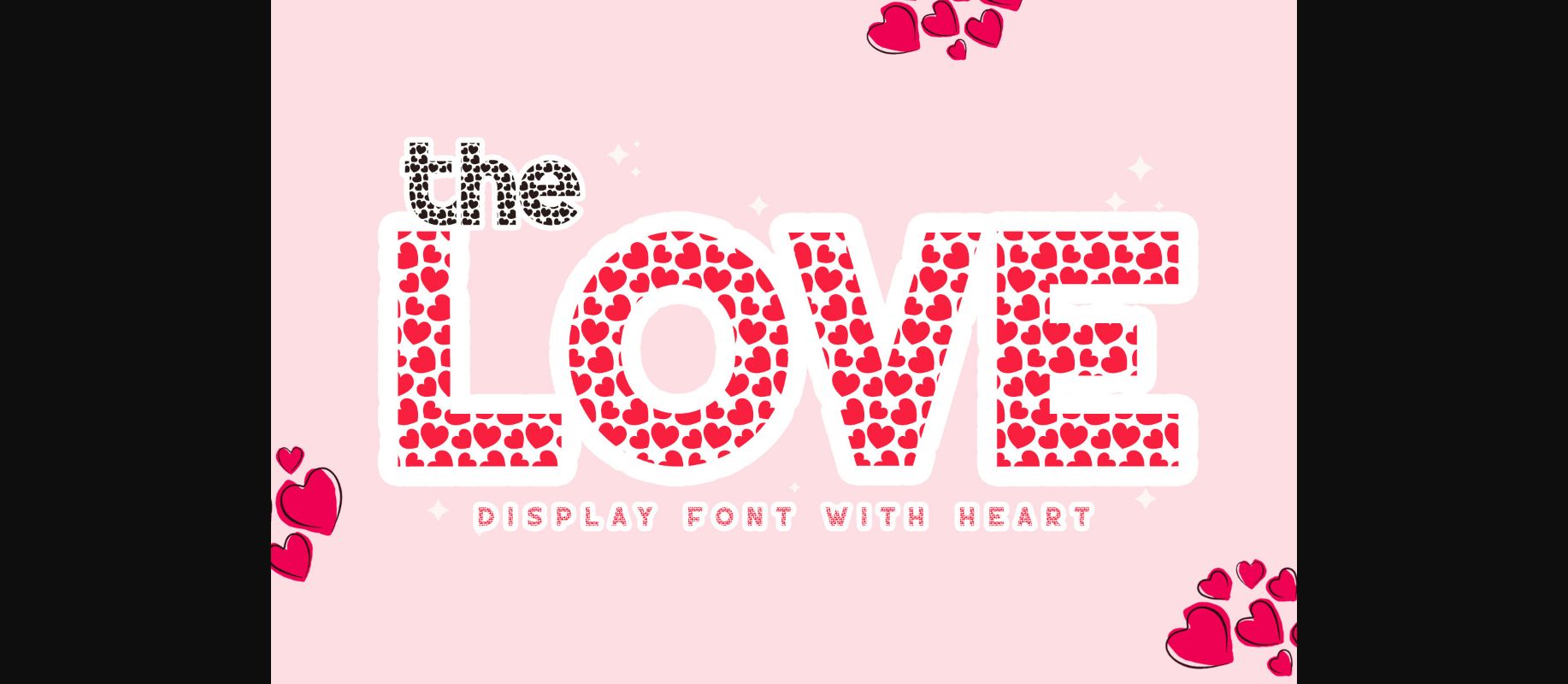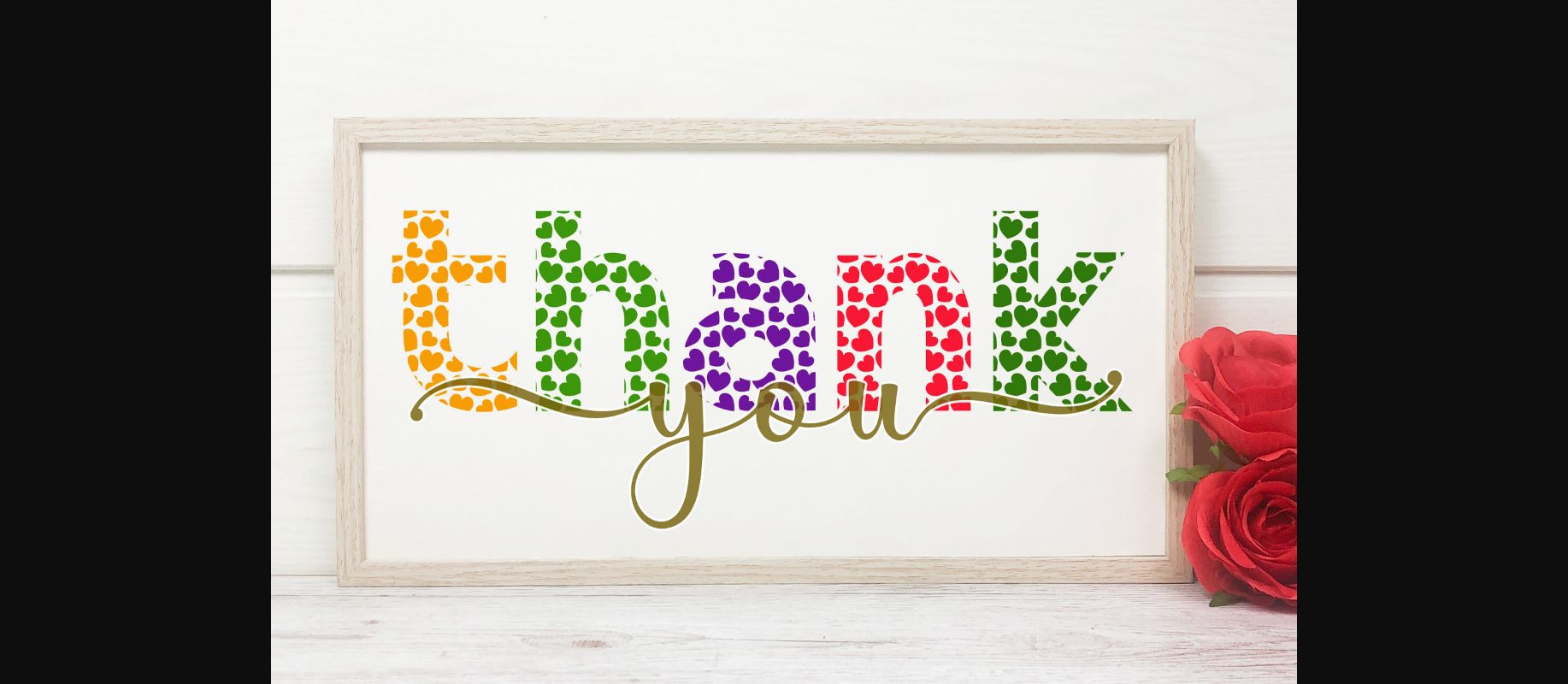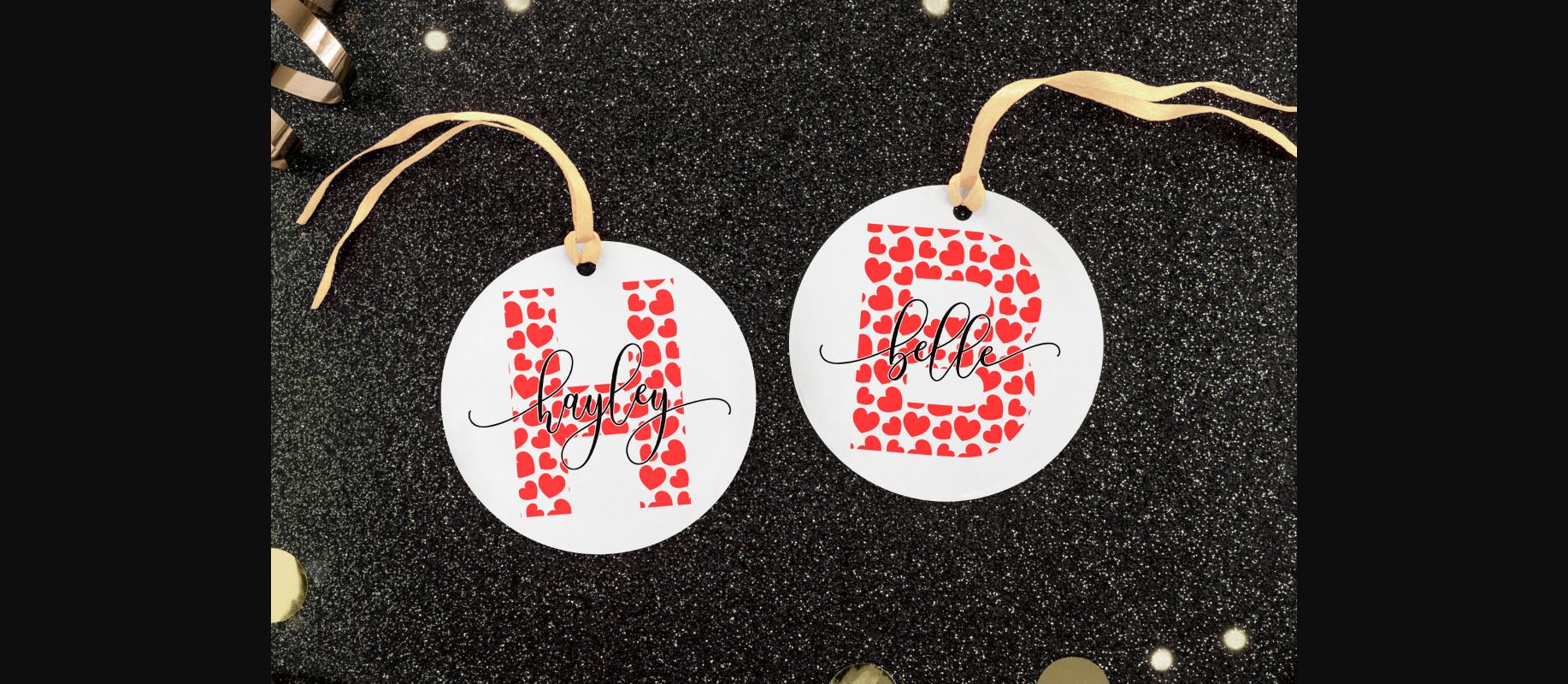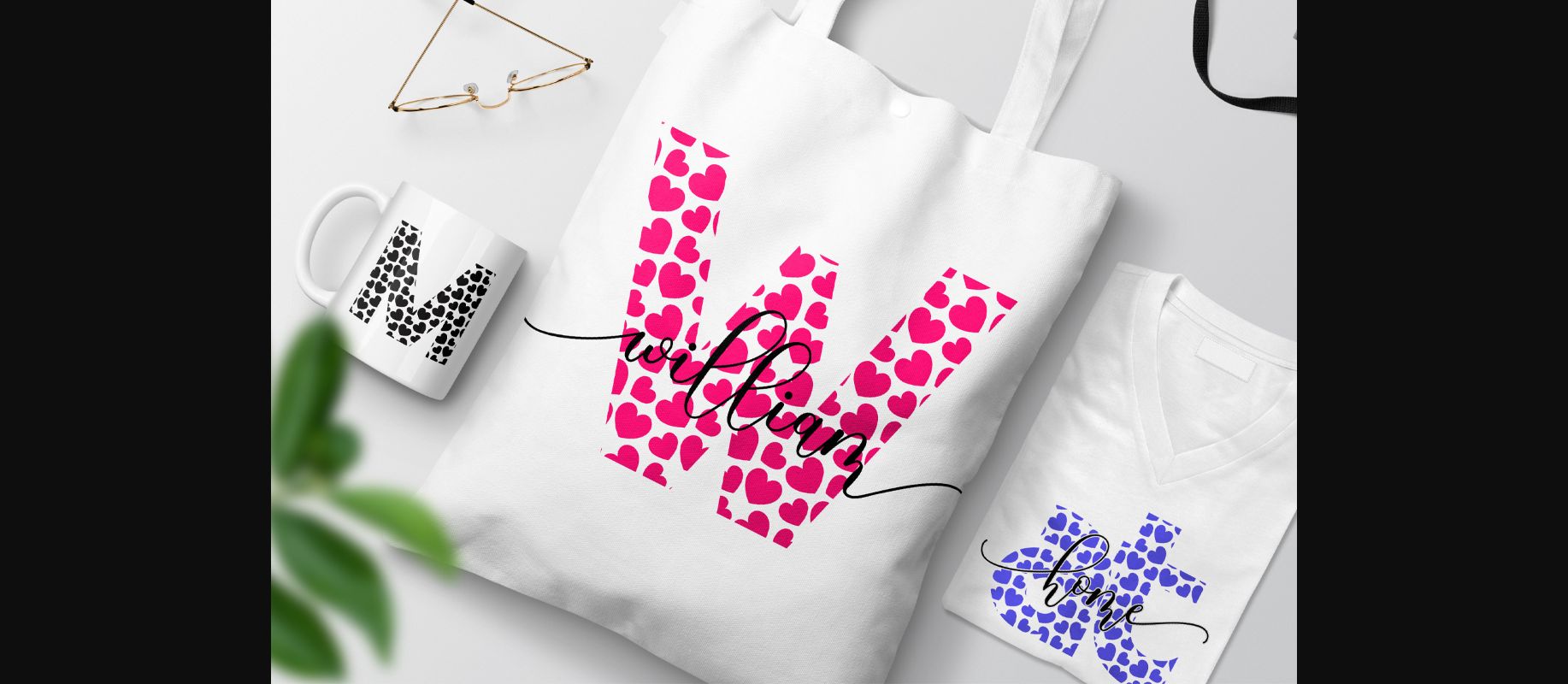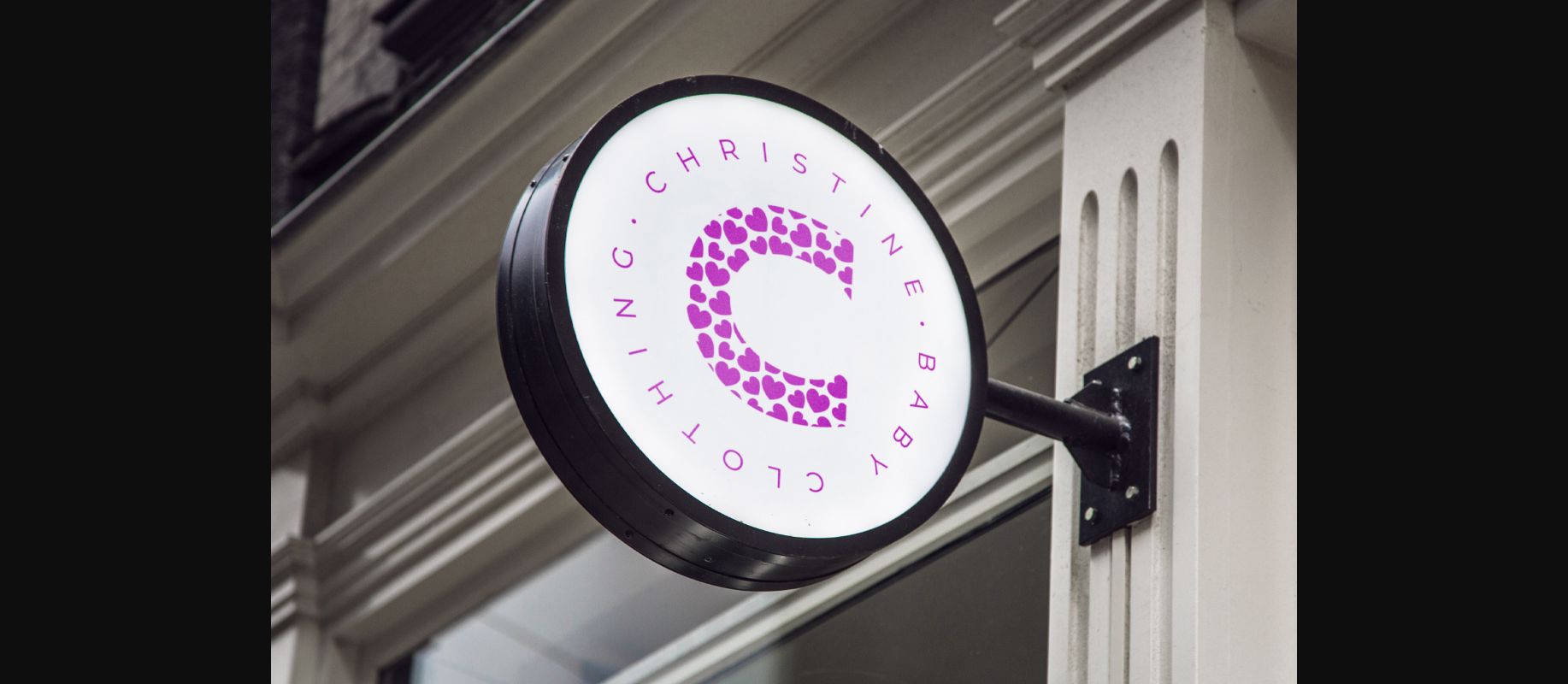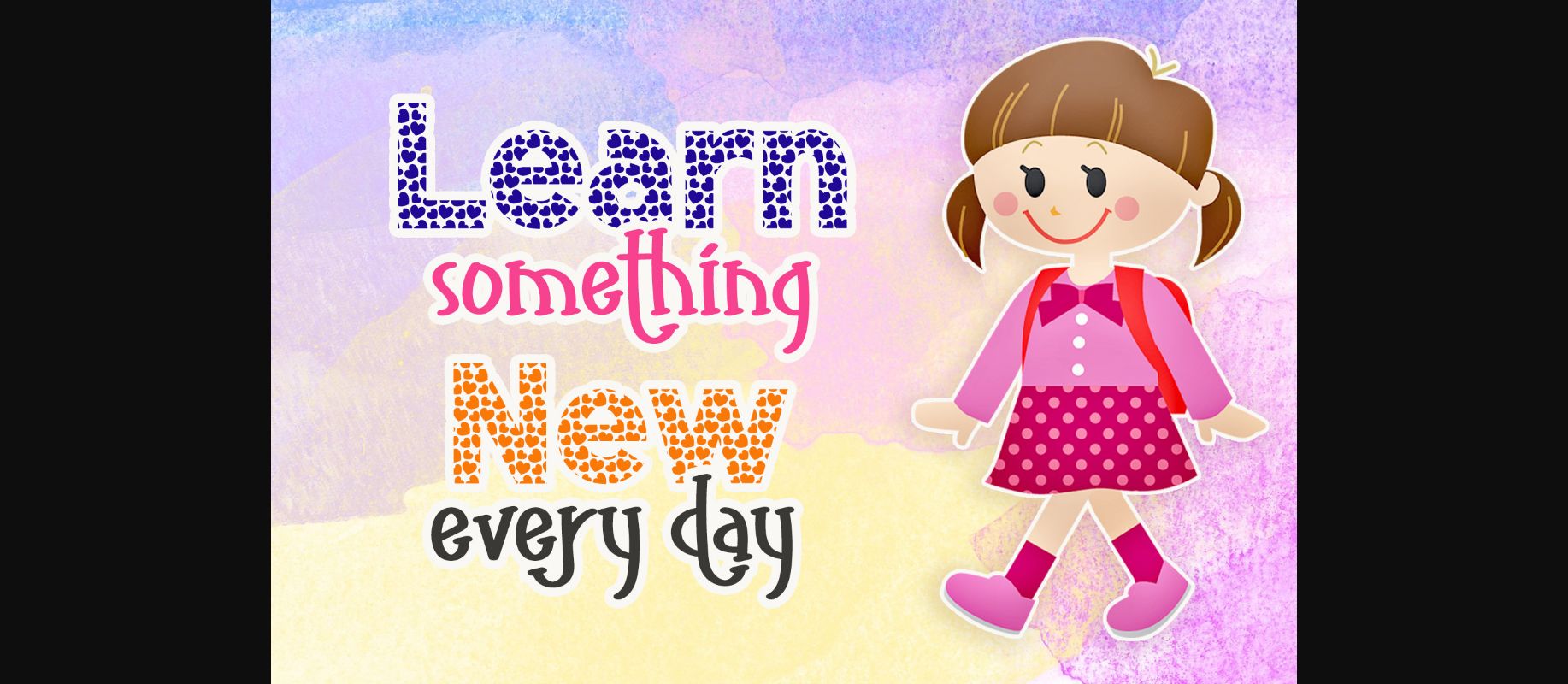
About The Love Font
The Love is a special decorative font with a heart accent for Valentine’s day.
The Love is so perfect to use for heart and love design, such as valentine’s, weddings, thanksgiving, and others.